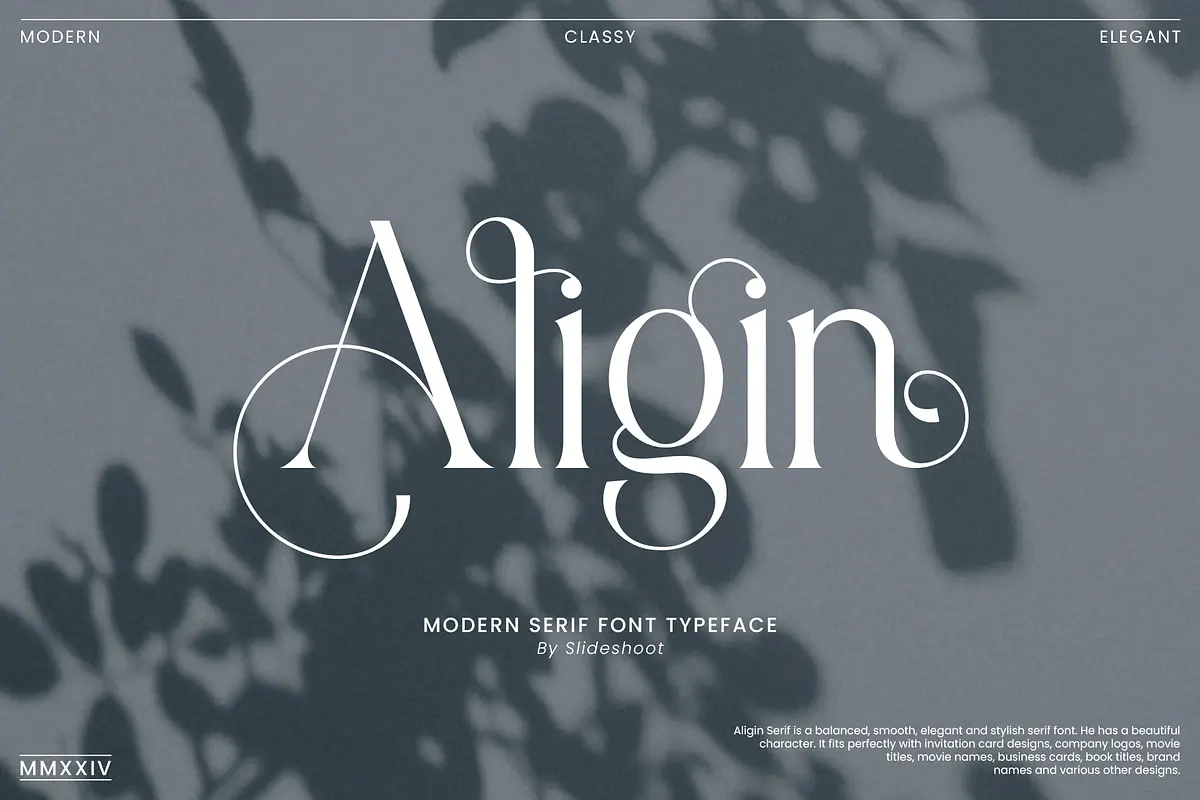
Aligin Serif - Modern Serif Font Free Download
Upgrade your design with sophistication using the Aligin Serif - Modern Serif Font Free Download. This elegant and contemporary serif typeface blends timeless structure with fresh, stylish details, making it ideal for editorial layouts, branding, websites, and professional presentations.
With its sharp serifs, balanced proportions, and subtle flair, Aligin Serif offers a refined look that commands attention without being overbearing. It’s perfect for fashion brands, luxury products, and any project that requires a touch of class wrapped in modern sensibility.